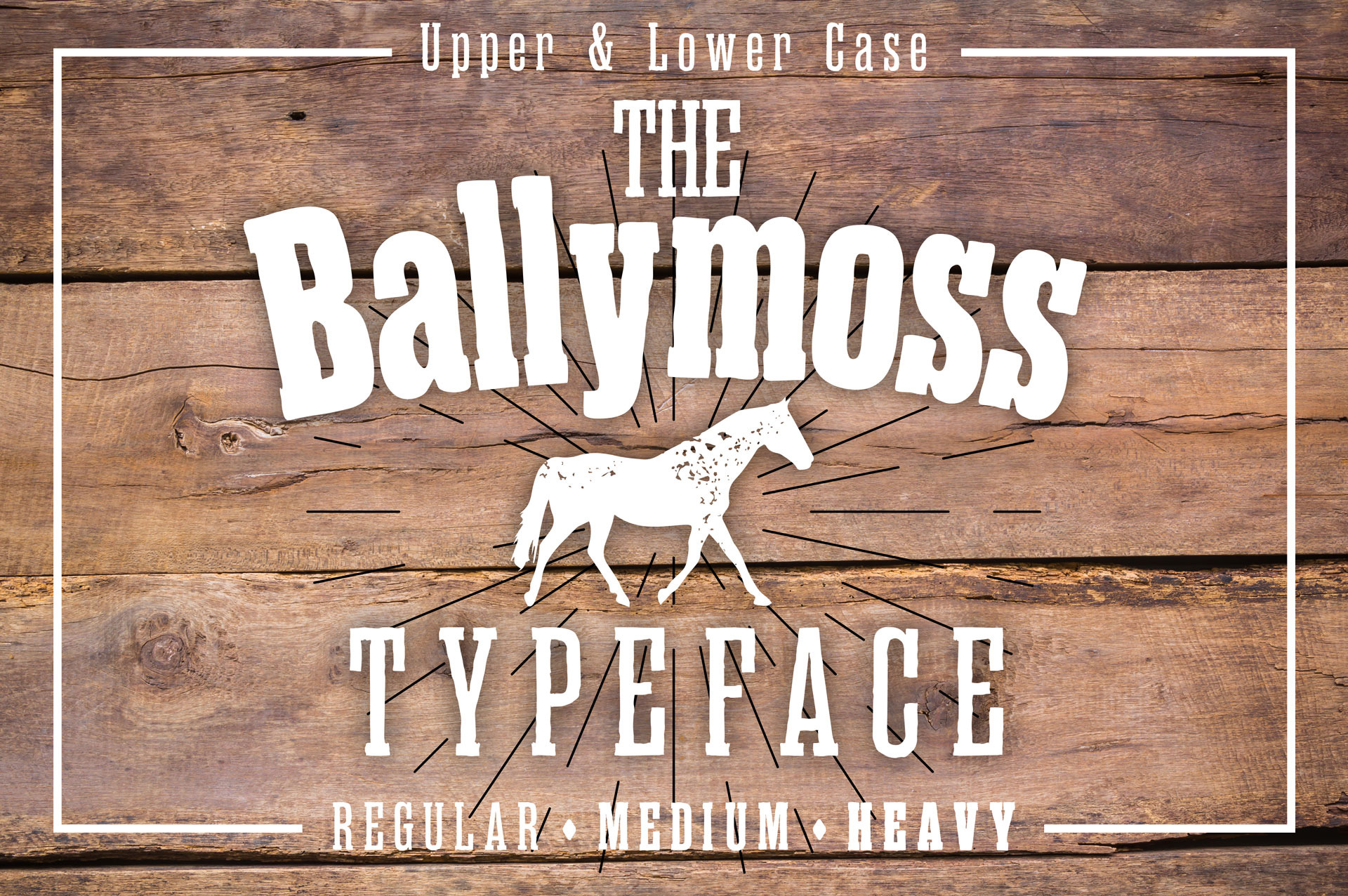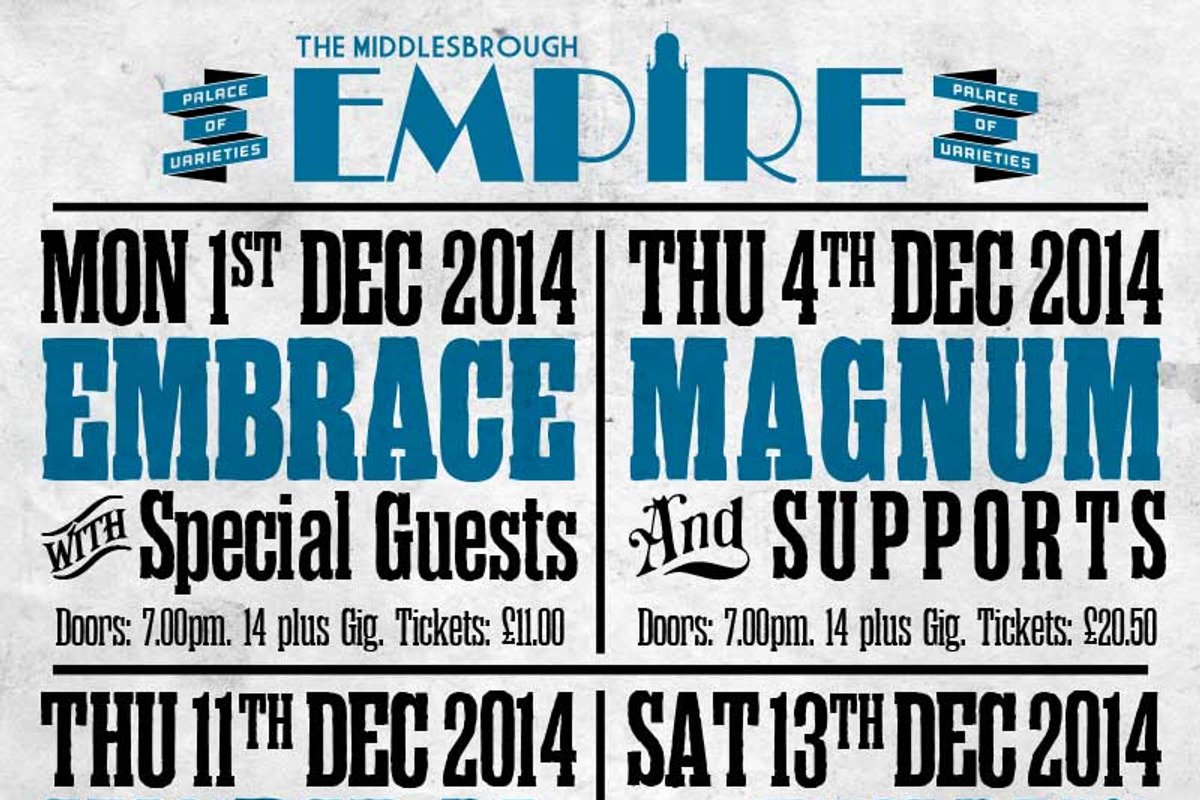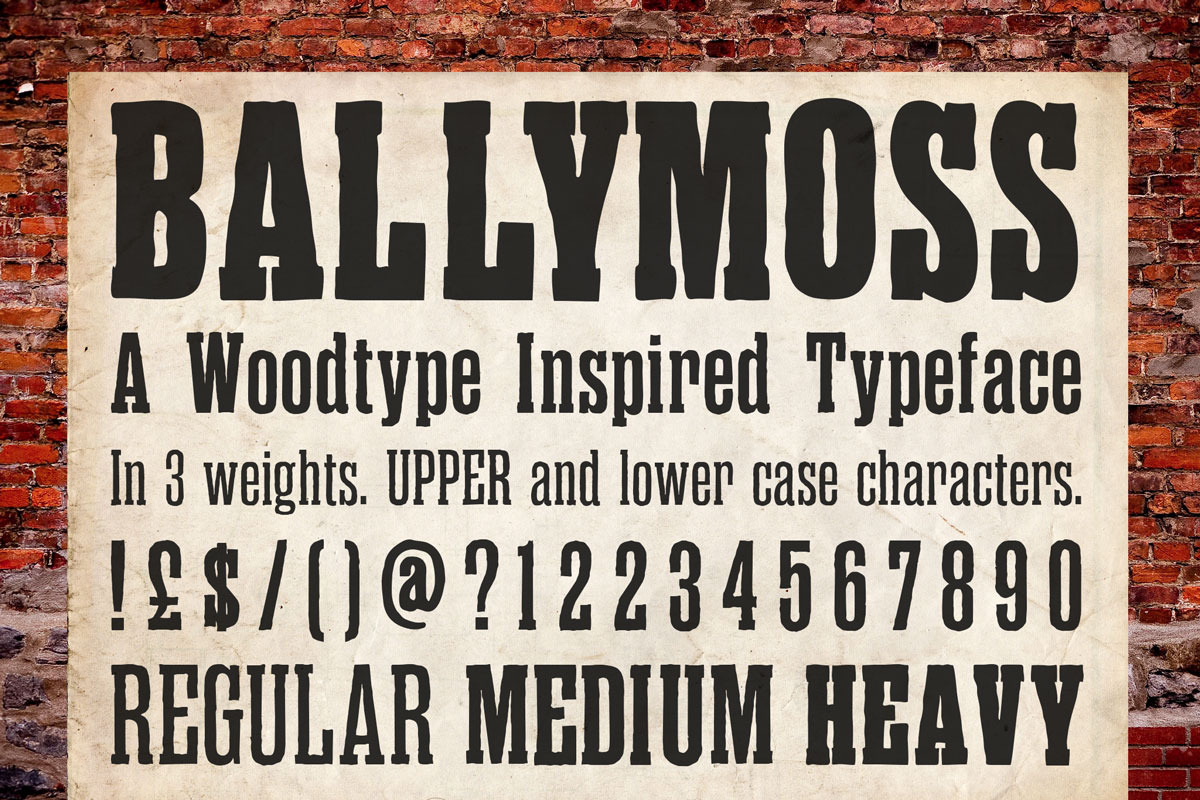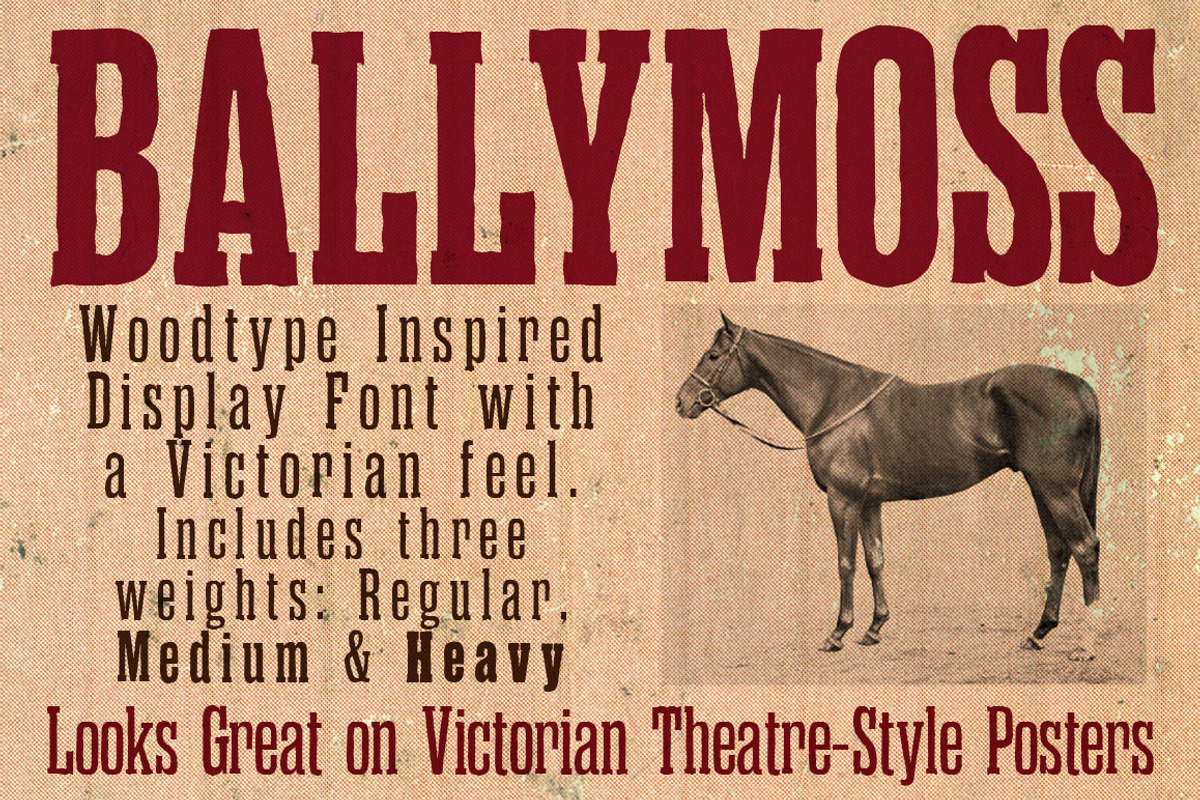
Ballymoss Woodblock Font
A wood type inspired typeface in 3 weights: Regular, Medium and Heavy. Upper and lower case, numerals and punctuation. Perfect for retro style woodblock print posters.